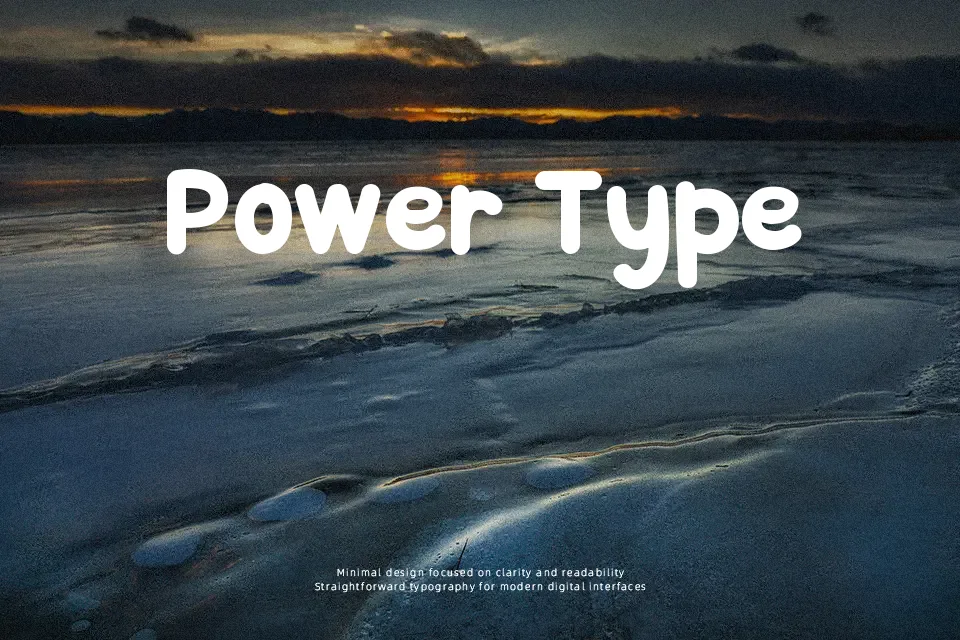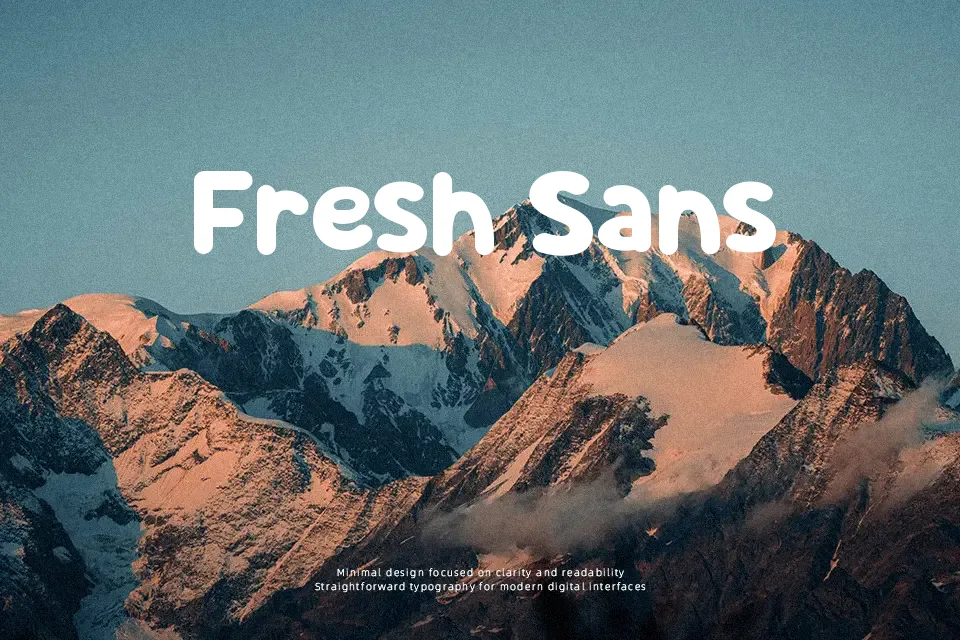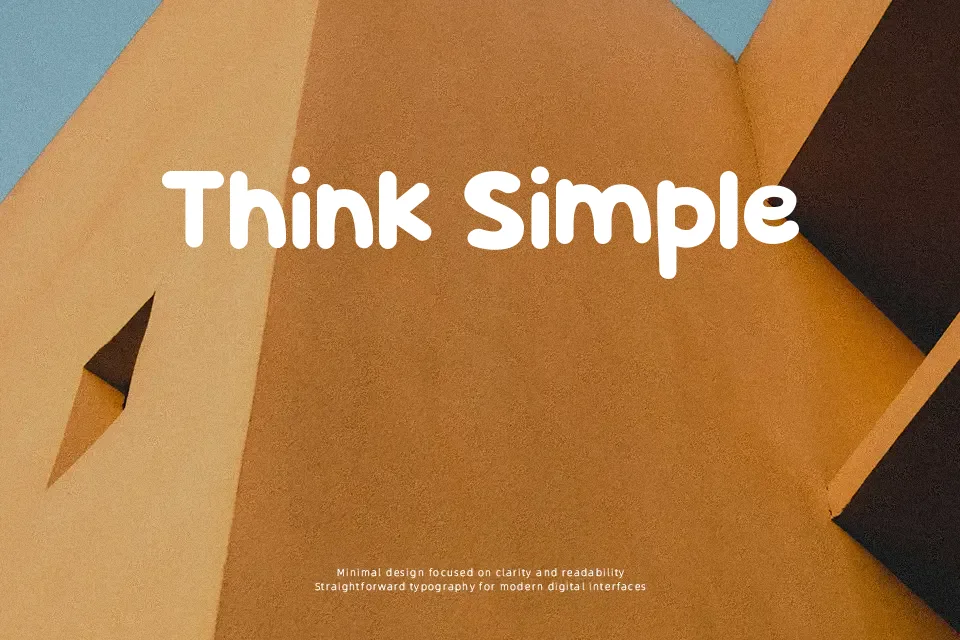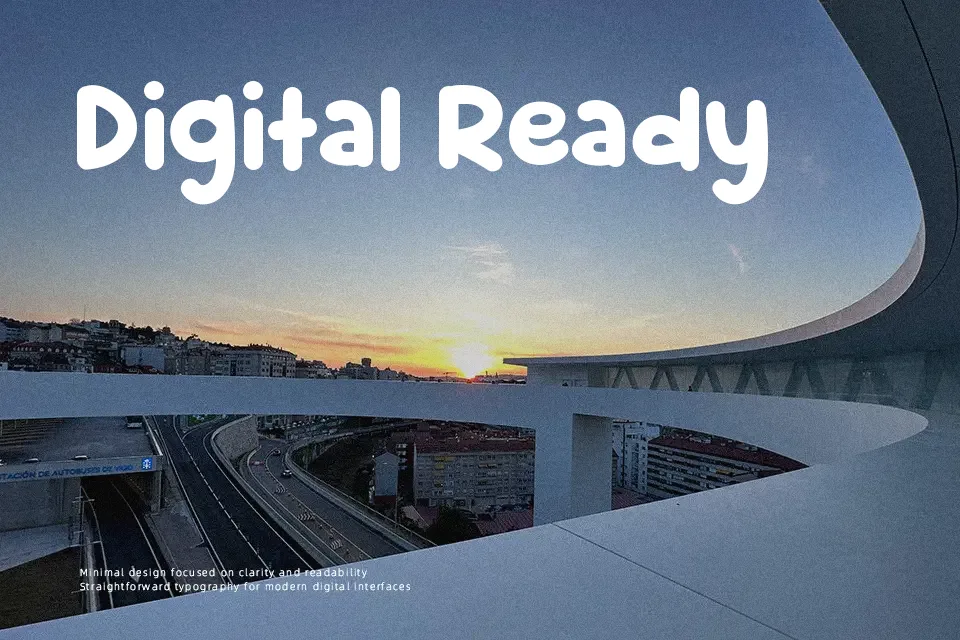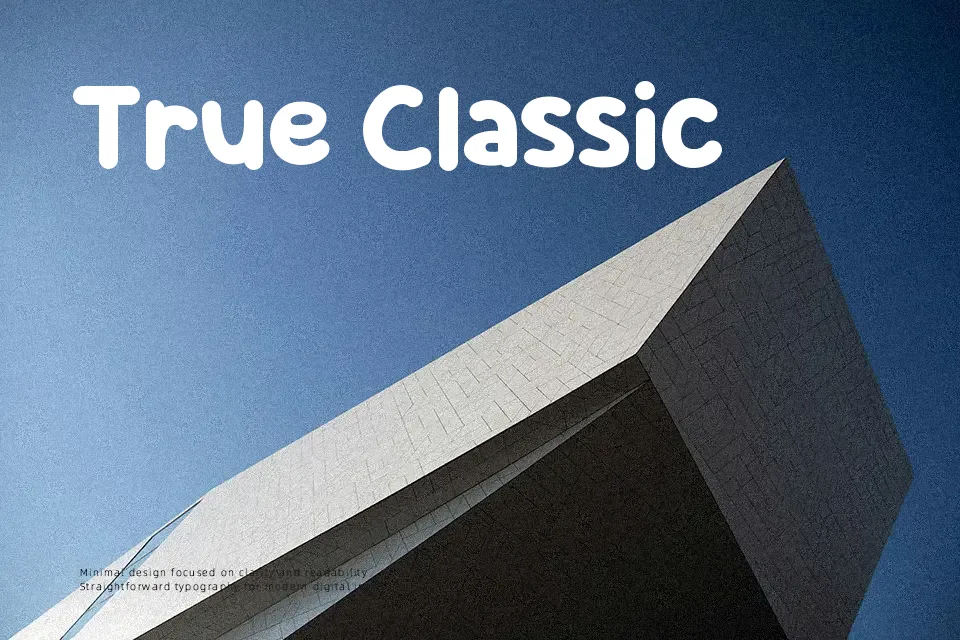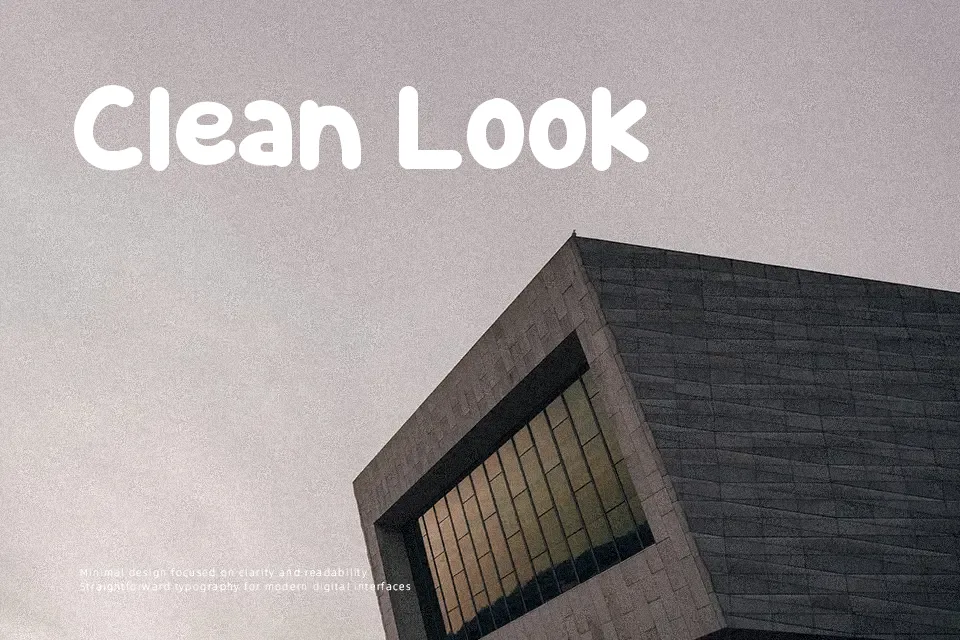
Nice Info Font
Designed by VinType
Nice Info opens with bouncy, cartoon-influenced letterforms that feel informal and approachable, using rounded strokes and soft curves to create a relaxed visual rhythm. The design shows moderate stroke weight with low contrast, so the letters look even and easy to follow in short lines. Spacing leans toward balanced rather than tight, which helps individual characters stay legible when set at larger display sizes. Proportions are varied and slightly uneven, adding a hand-drawn character that works well for headlines or brief text blocks but can become visually busy in dense paragraphs. The letterforms remain readable for small clusters of words, yet the decorative, comic style is less comfortable for continuous reading or detailed informational layouts.
casual poster headlines
kids-oriented packaging and labels
playful social media graphics
informal event titles and signage
long paragraph text and articles
small interface labels and tooltips
structured data tables or reports
Perfect for headline, kids, and logo, with a creative and comic style.